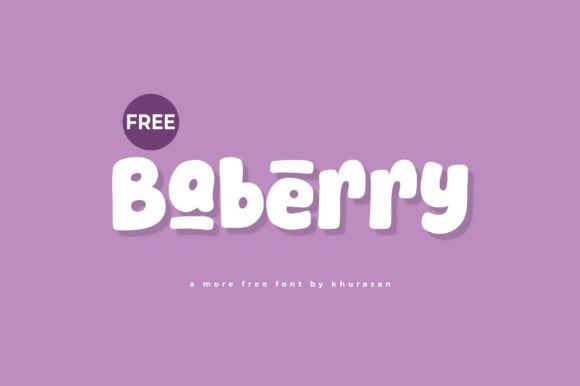
Baberry: A Modern Display Font for Creative Projects
In the crowded landscape of digital design, typography often acts as the silent voice of a brand or message. It is the first element that catches the eye and sets the emotional tone before a single word is read. Baberry emerges in this space not just as another typeface, but as a distinct character designed to bring warmth, playfulness, and modernity to visual communication. Whether you are sketching a logo on a napkin or finalizing a magazine spread, the right font can transform a good idea into a memorable experience. Baberry offers a blend of cute aesthetics and structural reliability that makes it a versatile tool for a wide range of creative endeavors.
Understanding the Character of Baberry
Baberry is best described as a modern display font with a charming, approachable personality. Unlike strict serif or sans-serif fonts that prioritize neutrality, Baberry leans into its decorative nature while maintaining legibility. Its curves are soft yet defined, giving it a friendly vibe without sacrificing the professional polish required for public-facing materials. This balance is what allows it to function effectively across diverse mediums, from small social media banners to large-scale outdoor posters.
The design philosophy behind Baberry focuses on versatility within a specific aesthetic niche. It is not intended to be a body text font for long-form novels; rather, it shines where impact matters most. When used for headlines, logos, or short phrases, its unique letterforms create an immediate visual hook. For designers looking to inject a sense of whimsy or modern cuteness into their work, Baberry provides a ready-made solution that feels both current and timeless.
Why Different Audiences Value This Typeface
The appeal of a font like Baberry varies significantly depending on who is using it and what they aim to achieve. For a beginner designer, the primary value lies in ease of use and instant results. For a seasoned professional, the focus shifts to how well the font integrates into an existing brand identity or solves a specific layout challenge. Understanding these differing priorities helps clarify whether Baberry is the right fit for your specific project goals.
The Perspective of Beginners and Hobbyists
For those new to graphic design, the learning curve can often feel steep. Choosing a font that looks professional without requiring advanced kerning or spacing adjustments is a huge advantage. Baberry serves this audience well by offering a "plug-and-play" aesthetic. A hobbyist creating invitations for a birthday party or a student designing a poster for a school club can apply Baberry immediately and see a polished result.
Beginners often struggle with pairing fonts. Because Baberry has such a strong character, it pairs effortlessly with simple, neutral sans-serifs. This reduces the cognitive load on the user, allowing them to focus on color choices and imagery rather than getting bogged down in typographic theory. The font acts as a supportive tool that boosts confidence, making the creation process less intimidating and more enjoyable.
The Professional Designer's Toolkit
Experienced creators and professionals approach Baberry with a different set of criteria. They are looking for flexibility, consistency, and commercial viability. For a freelance graphic designer working on a branding package for a boutique coffee shop, Baberry offers a way to communicate warmth and community. The font's modern lines ensure it doesn't look dated, which is crucial for businesses aiming for longevity.
Professionals also evaluate a font based on its technical performance. Does it render clearly at small sizes? How does it behave when scaled up for a billboard? Baberry is engineered to handle these variations gracefully. In a fast-paced agency environment, speed is essential. Having a reliable display font that requires minimal tweaking saves valuable time, allowing designers to iterate faster and deliver high-quality concepts to clients sooner.
Entrepreneurs and Small Business Owners
For entrepreneurs and small business owners, design is often about standing out in a saturated market without a massive marketing budget. Baberry presents an opportunity to establish a unique visual identity quickly. A bakery owner might use it for their menu board to evoke sweetness and homemade quality. A children's book publisher could utilize it for cover titles to signal fun and adventure to young readers and parents alike.
The cost-effectiveness of a high-quality font is also a major factor here. Instead of hiring a custom illustrator to draw a logo, a business owner can license Baberry and achieve a bespoke look that resonates with their target demographic. This democratization of design tools empowers small businesses to compete visually with larger corporations, ensuring their message is conveyed with clarity and style.
Practical Applications Across Industries
The true test of a display font is its adaptability. Baberry has been crafted to thrive in various contexts, proving that a "cute" font can still carry significant weight in serious applications. Here is how different sectors can leverage its unique qualities:
Ultimately, the decision to use Baberry comes down to the story you want to tell. It is a tool that invites creativity, encouraging users to experiment with layout, color, and composition. By adding it to your creative arsenal, you open the door to designs that stand out, connect emotionally, and leave a lasting impression. Whether you are crafting a personal project or launching a global campaign, the right typography can make all the difference, and Baberry stands ready to help you make yours count.